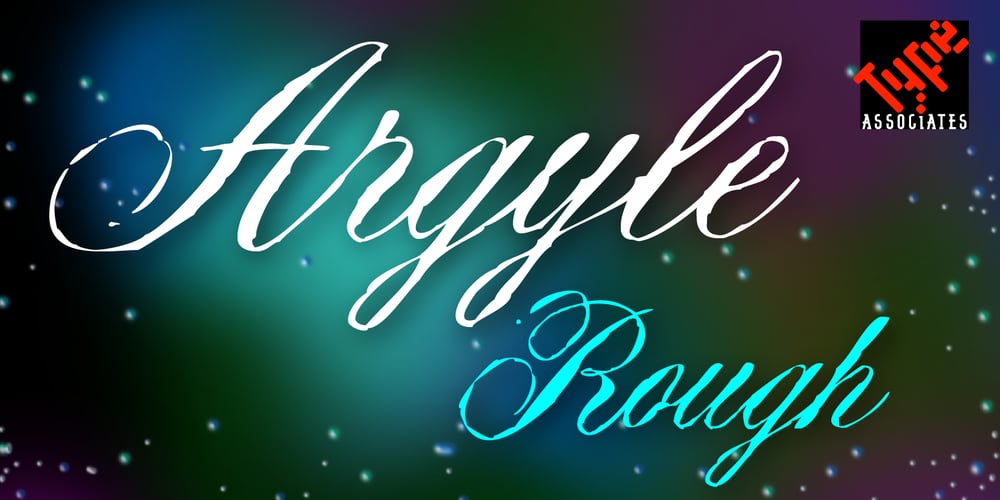
Argyle Rough Font Family was designed by published by Type Associates. Argyle Rough contains 1 styles and family package options. Argyle Rough was originally developed for a packaging campaign in the late 80s in my studio and sat around in various stages of completion until I decided to autotrace my original drawings. I liked the quirky roughness and decided that it did not detract from the charm of the original, in fact it improved it and saved me a whole lot of work. The original campaign called for a few additional alternate characters for use at either end and double in the middle of words, ee, ff, ll, ss etc and a stylized Th, always useful. I hope you enjoy Argyle Rough, named after the world’s largest diamond mine – a rough diamond, get it?